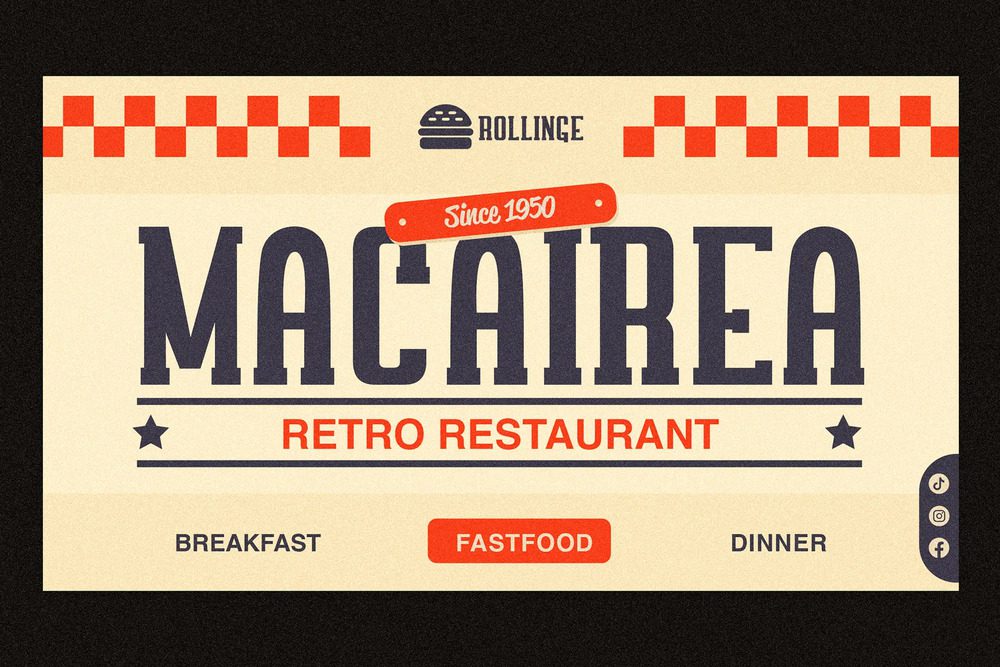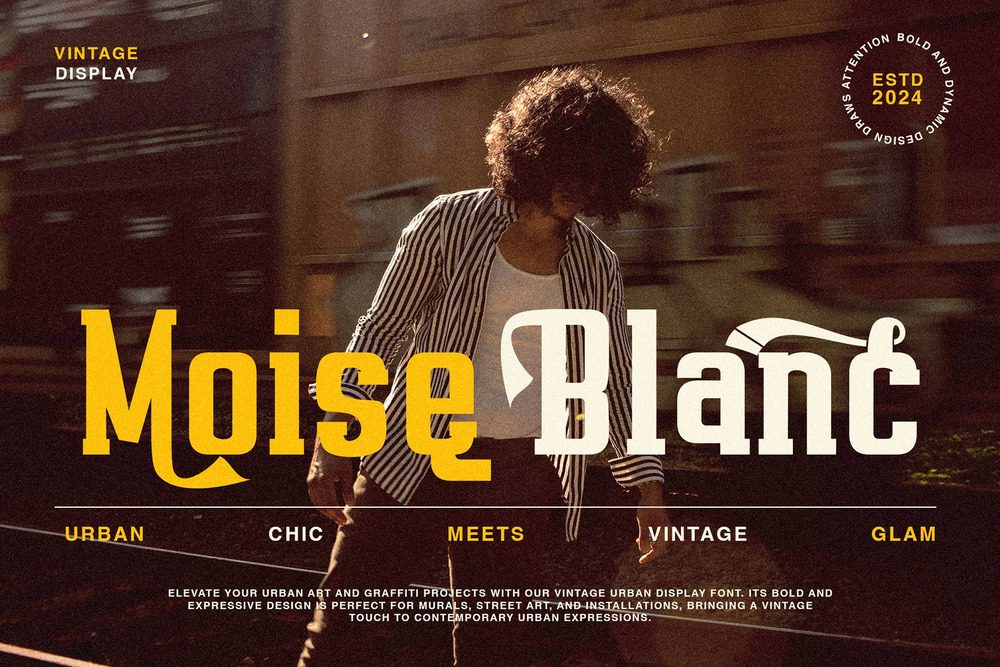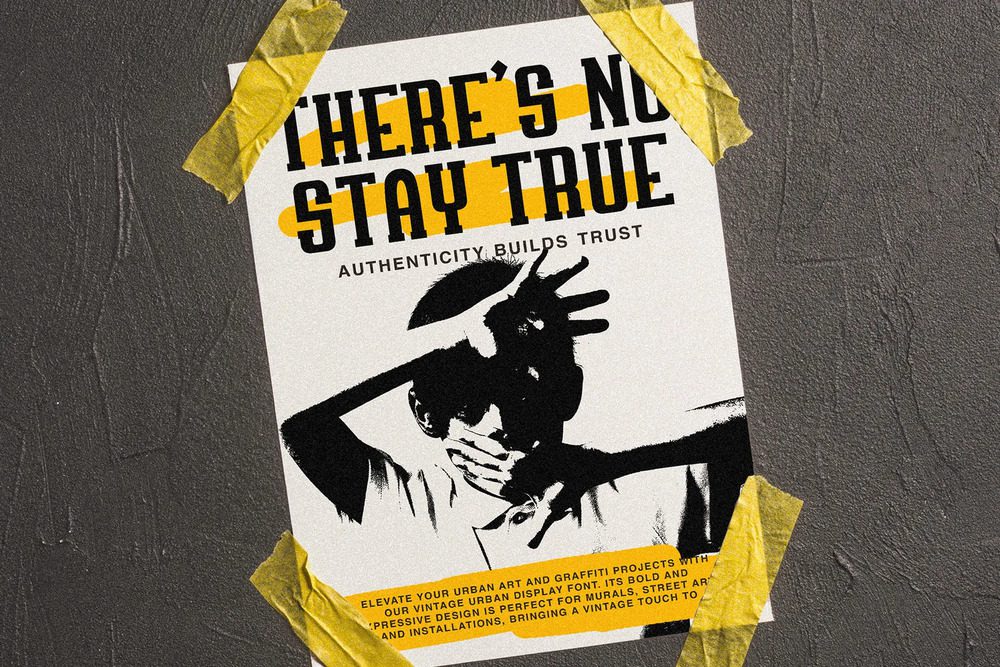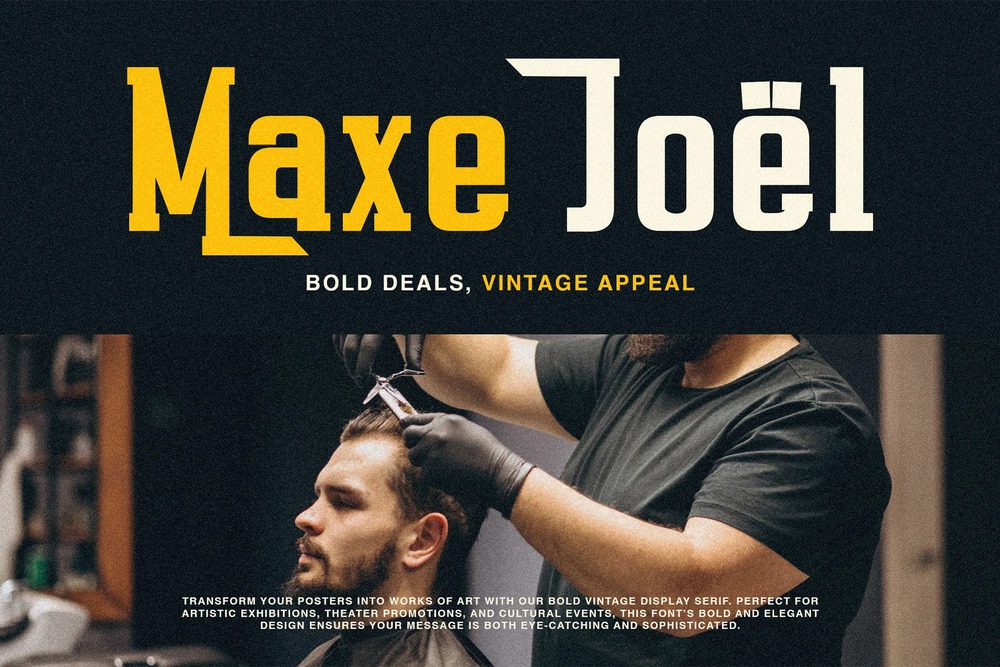
RollInge Font
ROLLINGE the new one, is an actual branding font. ROLLINGE is a classic font with a modern twist and most importantly, packed with a variety of alternative styles, making it easy to create unique characteristics in your projects. It’s incredibly versatile and perfect for logos, branding, posters, clothing designs, magazine titles, labels, and more.